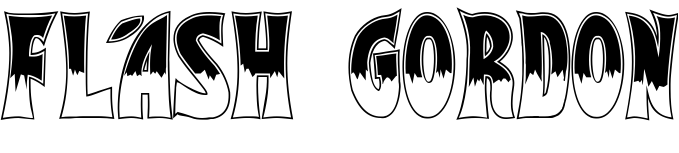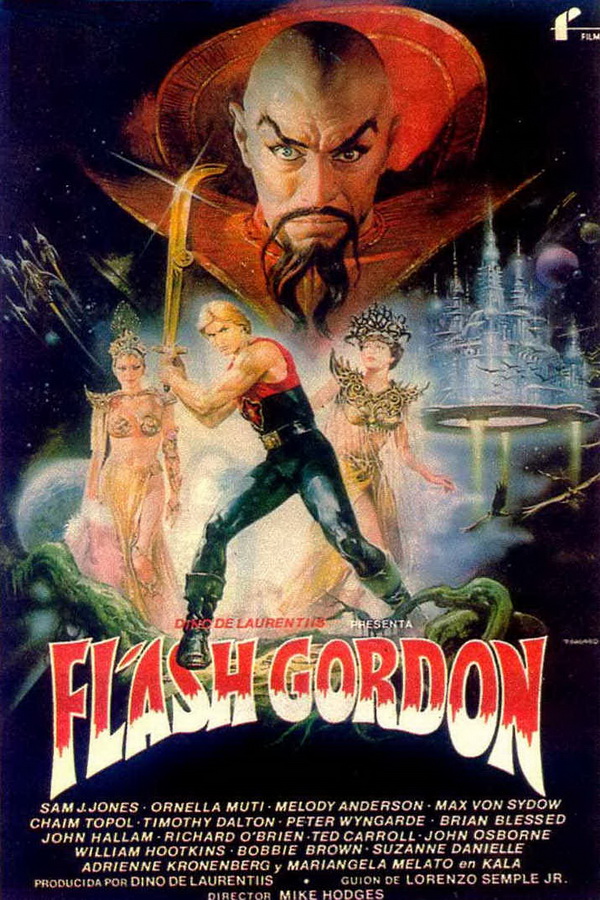
Flash Gordon Font
ActionFlash Gordon is a science fiction movie released in 1980, based on the comic strip of the same name. It follows the adventures of Flash Gordon as he battles the evil Ming the Merciless to save Earth from destruction.
The film's title font resembles Alphabet & Type's Flash Gordon font. It's available in capitals with limited punctuation, two sets of solid and half-hollowed styles. You can download it for free from the Fonts Used Section.